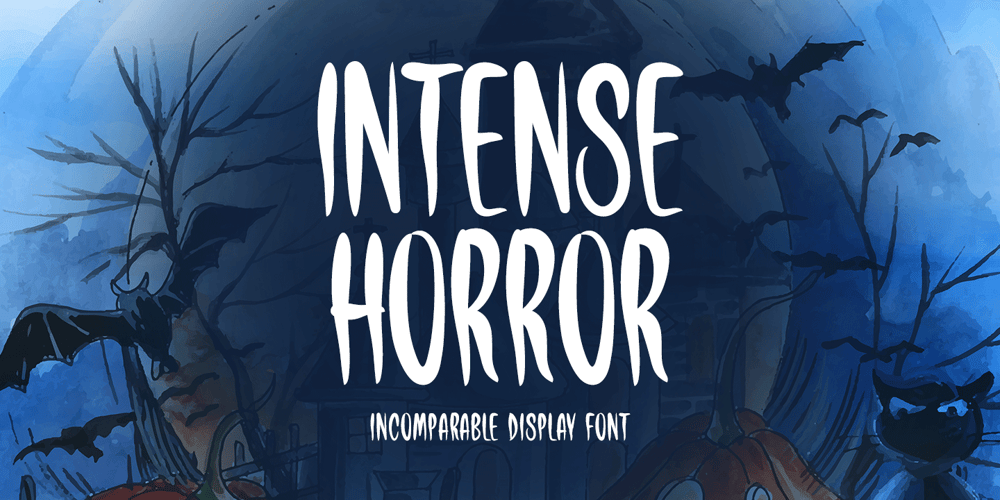
Intense Horror Font Family was designed by Md Shohail Bhuian and published by Seemly Fonts. Intense Horror contains 1 styles and family package options. Intense Horror is a cute and casual display font with a Halloween theme. Add this beautiful display font to each of your creative ideas and notice how it makes them stand out!